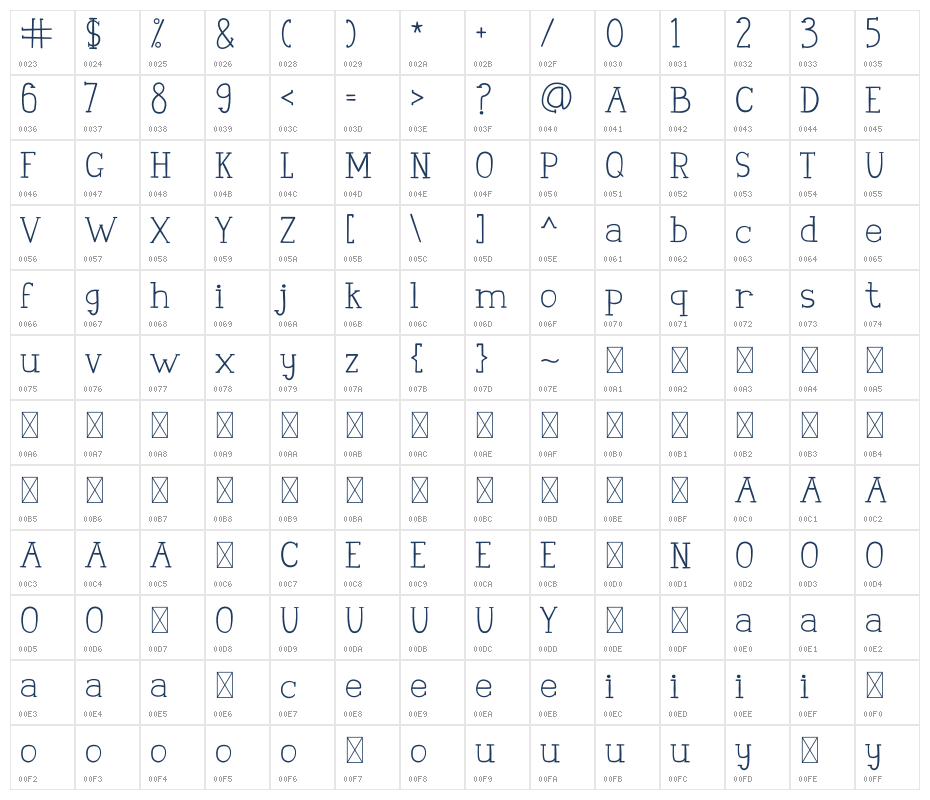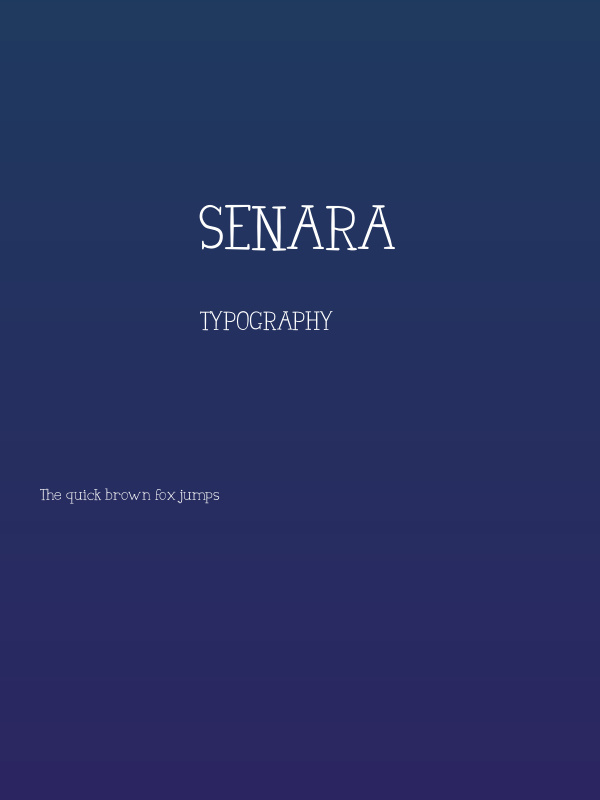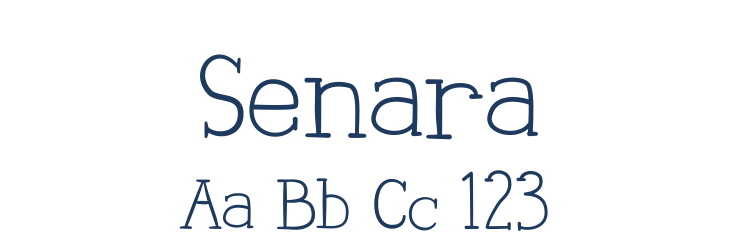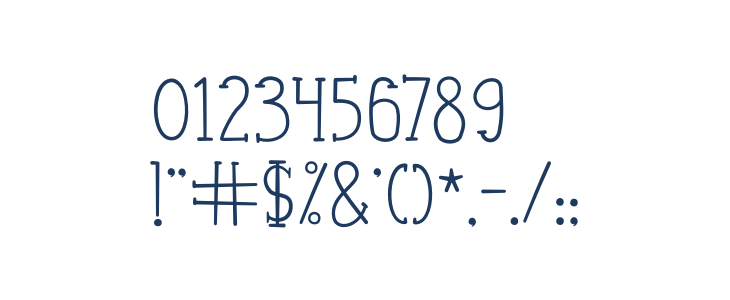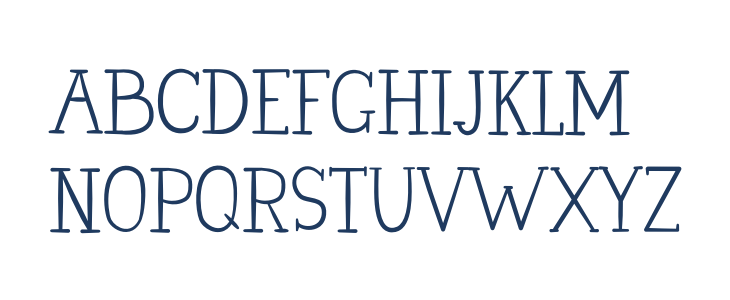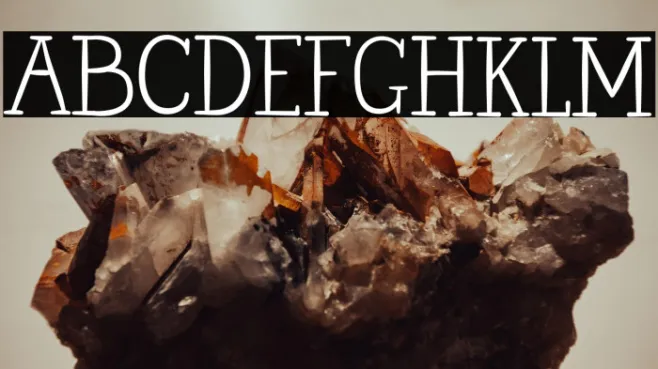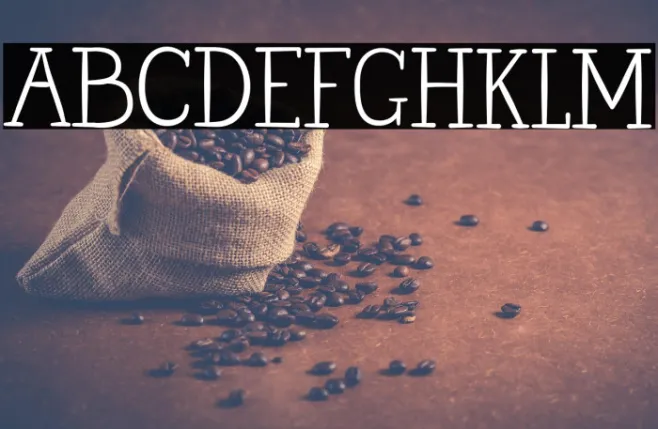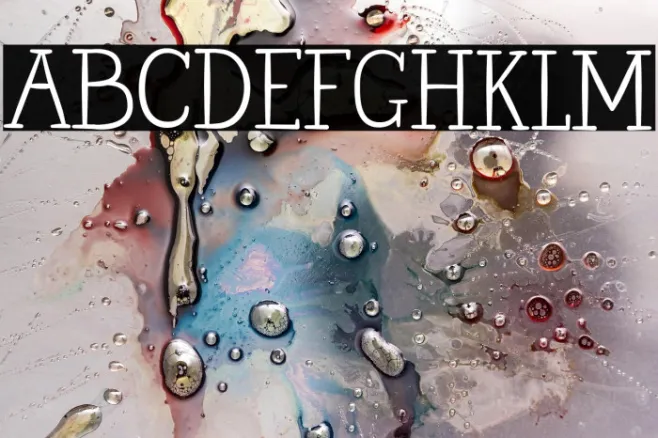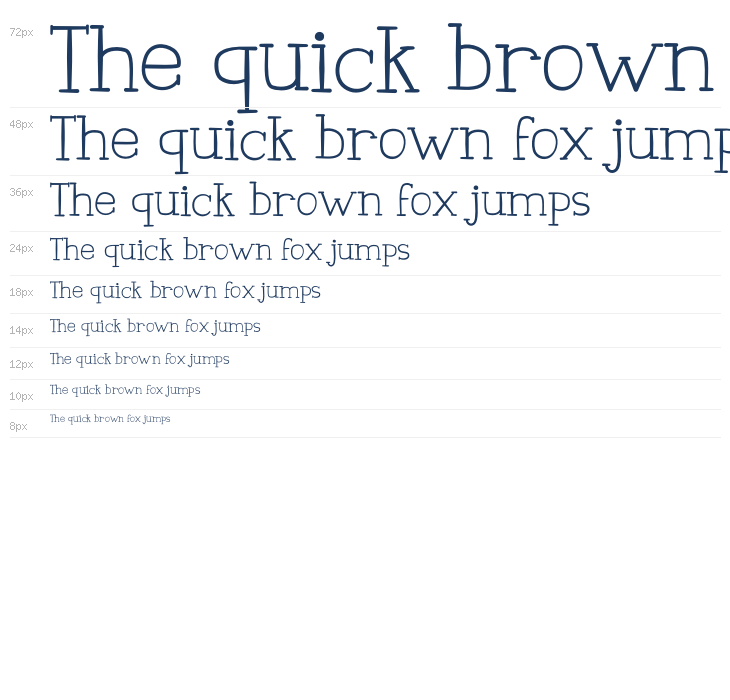
Senara Font
Senara Description
A playful, handwritten style font with a casual and whimsical appearance, featuring slightly irregular strokes and a friendly feel.
| Use Case | Headlines, Invitations, Personal projects, Creative branding |